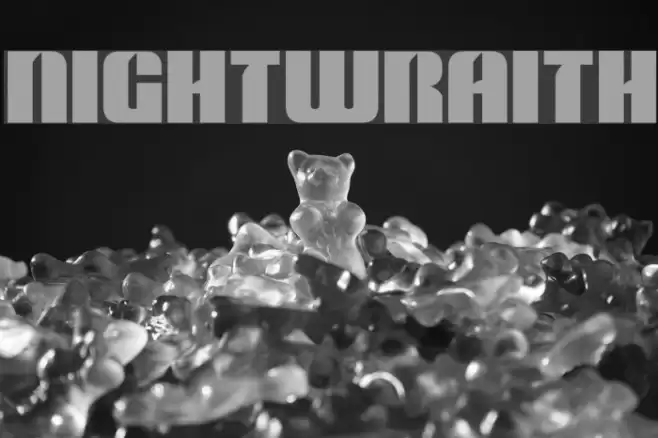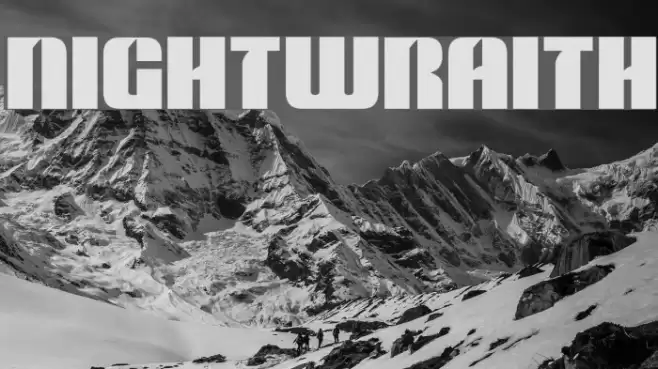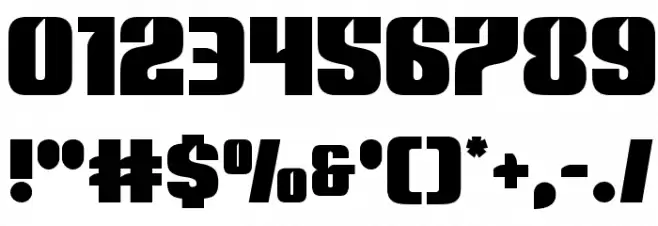
Nightwraith Font
Nightwraith Description
This font features a bold and striking design with a strong geometric influence. The characters are wide and blocky, creating a powerful visual impact. The uppercase and lowercase letters maintain a consistent weight, contributing to a cohesive and uniform appearance. The numbers and special characters follow the same bold style, ensuring readability and emphasis. The font's design is reminiscent of retro and futuristic aesthetics, making it suitable for projects that require a bold statement.
A bold, geometric font with a retro-futuristic style from Uncategorized fonts.
- Proposed Projects: Ideal for posters, logos, video game graphics, and branding that requires a strong visual presence.
- Width: Expanded
- Overall Style: Retro, Futuristic